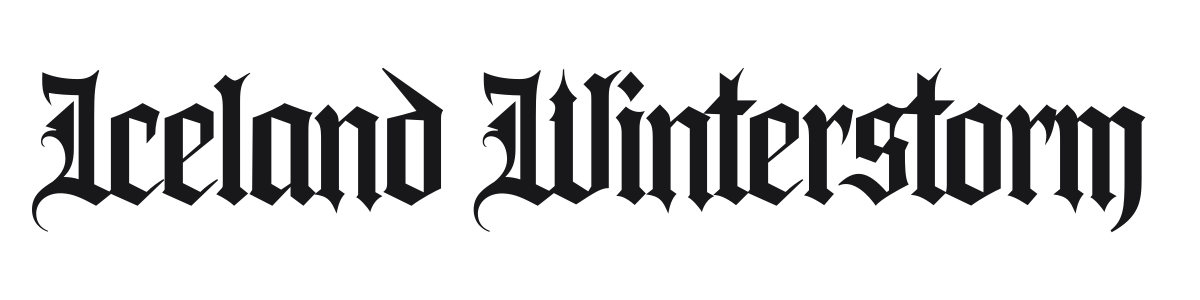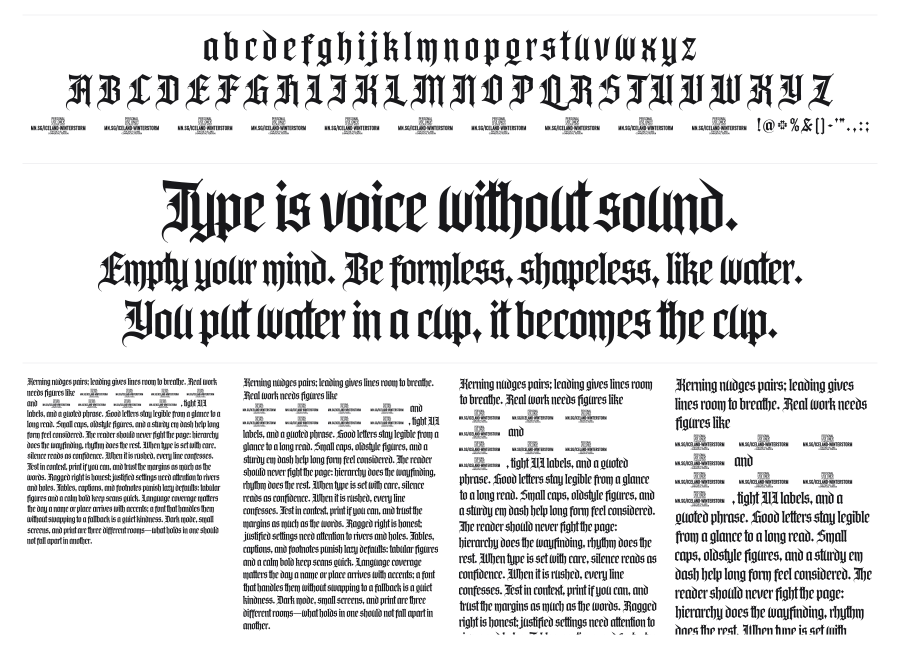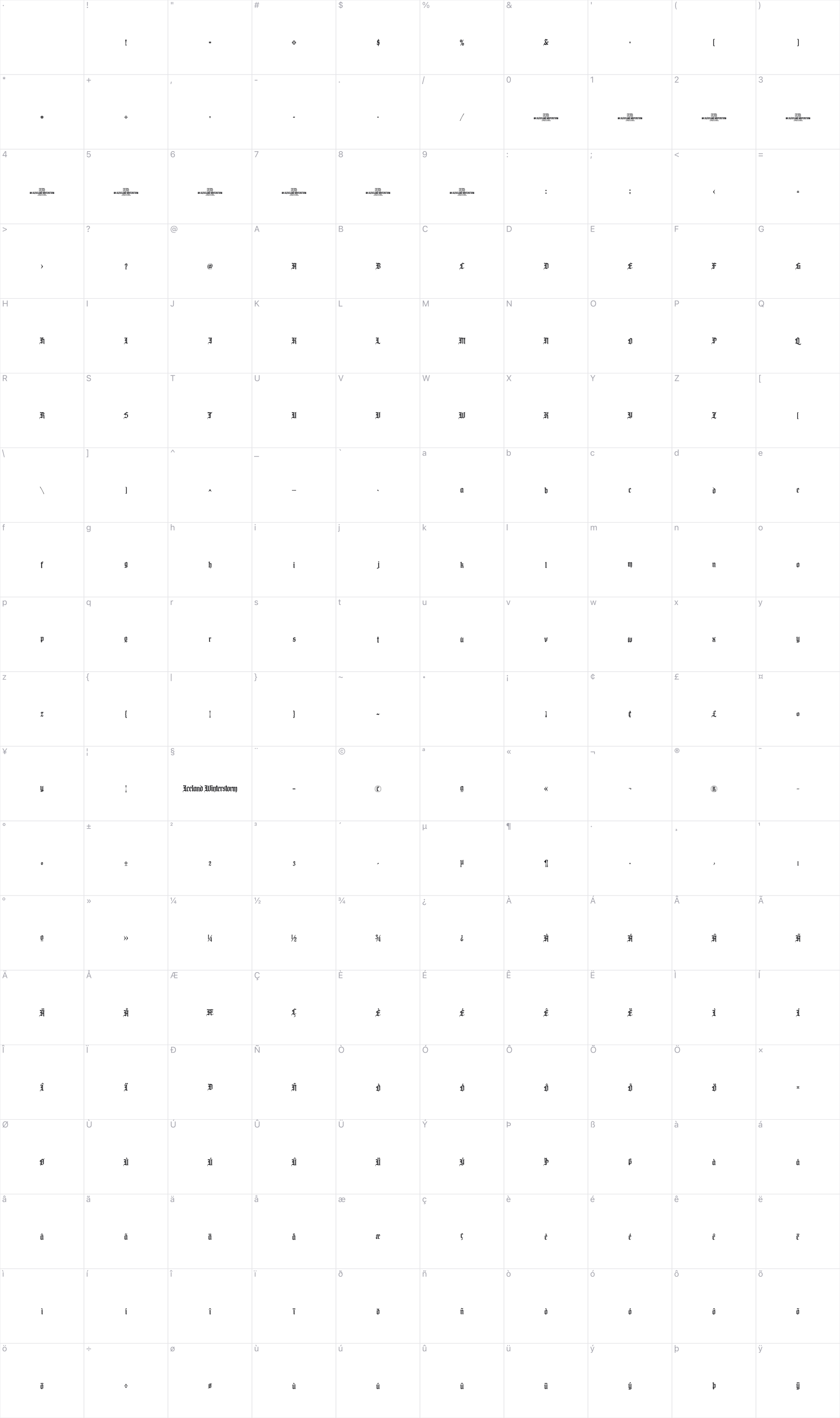
Iceland Winterstorm
Iceland Winterstorm is a bold blackletter that fuses medieval gothic construction with a cold, icy aesthetic. Sharp angular terminals and jagged notches across the letterforms evoke frost and frozen landscapes, setting it apart from conventional gothic types. It works across seasonal and dark-themed design, from Christmas packaging to metal band logos.